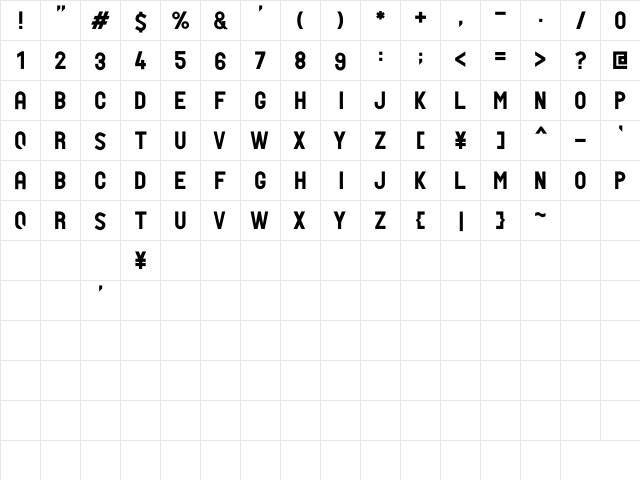
PTF NORDIC Std Normal
Design Context for PTF NORDIC Std Typeface
PTF NORDIC Std is a composed and adaptable typeface that performs quietly and consistently across a wide range of design contexts.